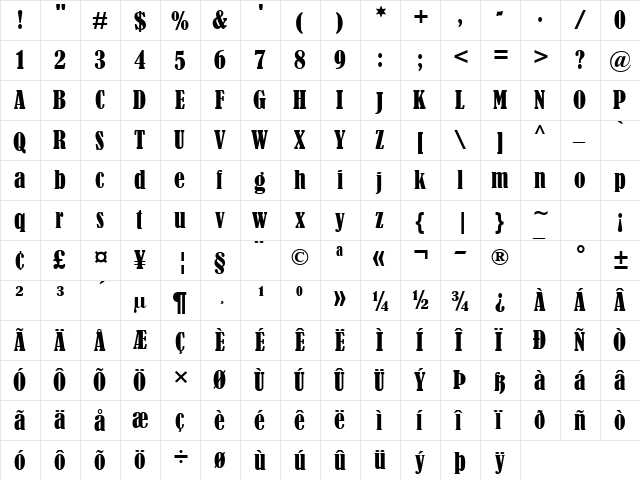
Bernard MT Condensed Regular
Design Context for Bernard MT Condensed Typeface
Bernard MT Condensed is a composed and adaptable typeface that performs quietly and consistently across a wide range of design contexts. The condensed width makes it efficient for tight spaces without sacrificing legibility.
Pro Tip: Use Bernard MT Condensed in both headline and body roles to test its range before committing to a single application.